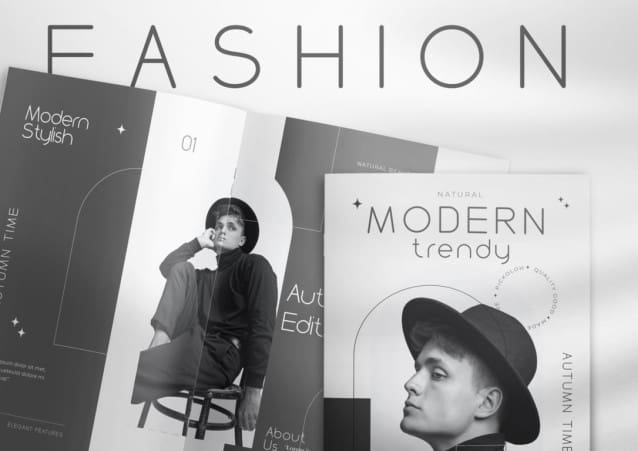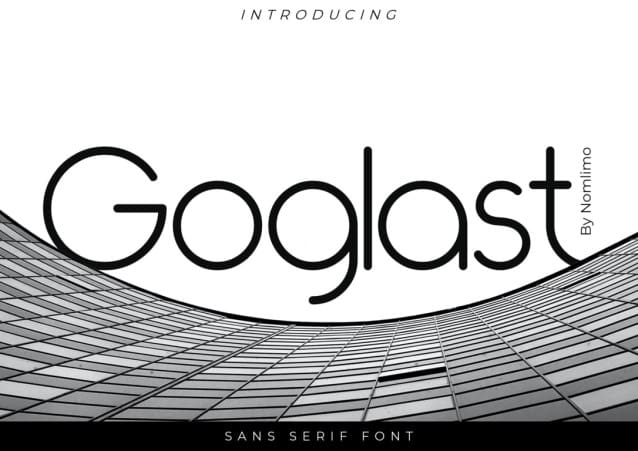
Goglast Font
Goglast Font, a contemporary display font that effortlessly combines authenticity and a casual vibe. This versatile typeface is a perfect choice for a wide range of design projects, including branding, logo design, lettering, clothing, posters, magazines, packaging, shopping bags, t-shirts, book covers, photography, special events, and more. Embrace the unique charm of Goglast as it adds a touch of modernity and laid-back elegance to your creations. With its authentic and casual appeal, this font will make your designs stand out and leave a lasting impression on your audience. Let Goglast elevate your branding, amplify your message, and bring your design projects to life with its distinctive character. Explore the endless possibilities of Goglast and unleash your creativity today.